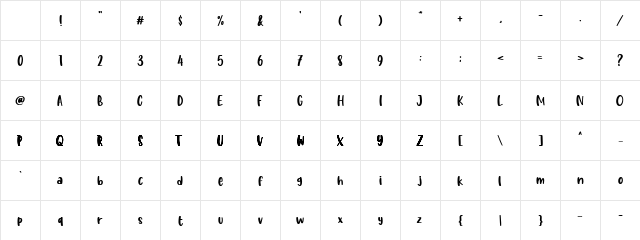
Complete Butter Tropical Demo Version Regular glyph index. Displaying only characters natively supported by Butter Tropical Demo Version Regular font.
Butter Tropical Demo Version is a composed and adaptable typeface that performs quietly and consistently across a wide range of design contexts.